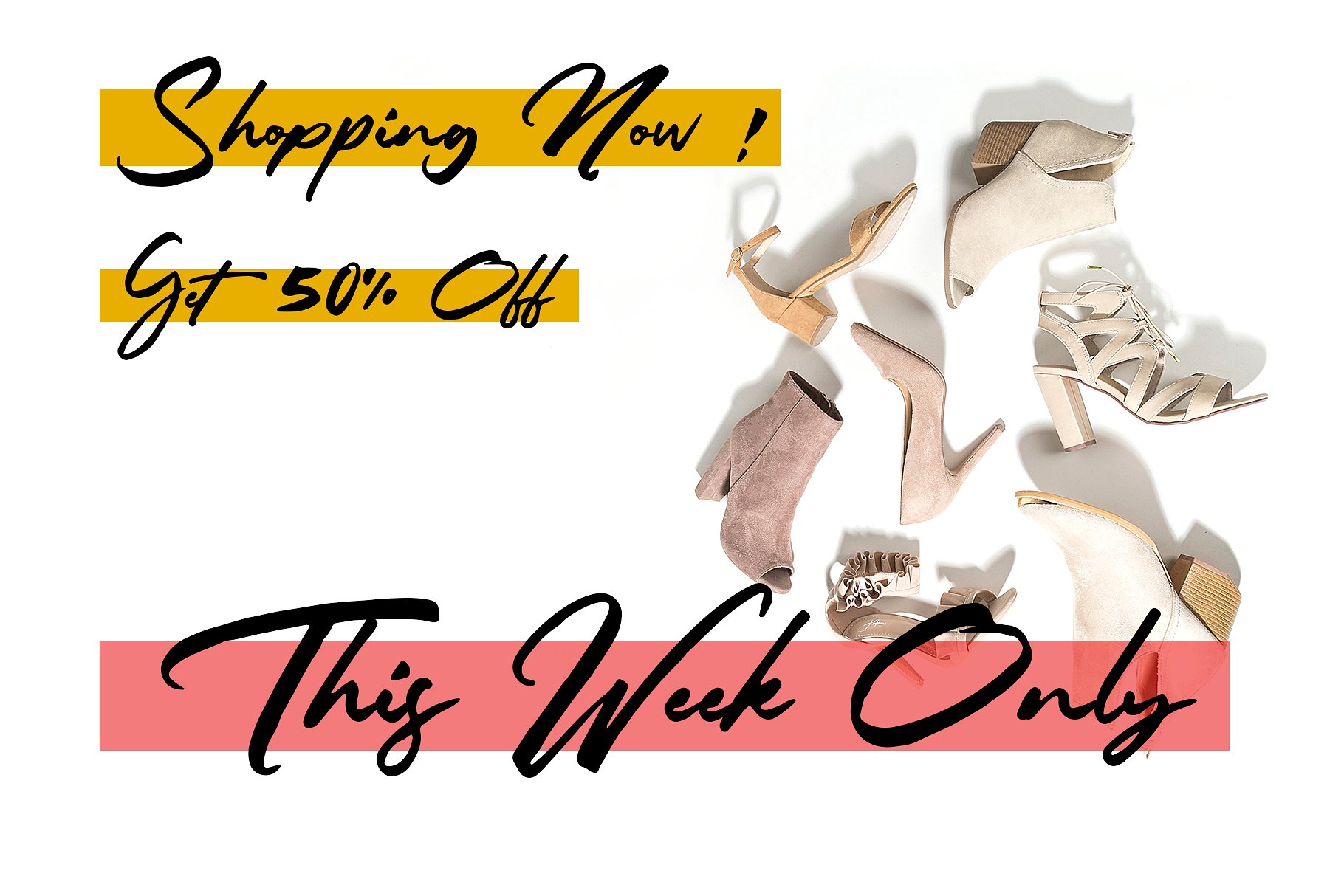
Rathiak Handwritten Font
Rathiak Handwritten Font – Free Demo
Are you looking for a powerfull handwritten font?.. yes , Rathiak Font is the best choice. It is designed and shared by SusiType. Rathiak Handwritten Font , brush handwritten font. With the organic of handwritten feels. Came up with alternates, ligatures and separate swash font. This font will nail your any design projects. Grab it now ! Senella is suitable for any design project, vintage, fashion, branding, print design and whatever design you want.